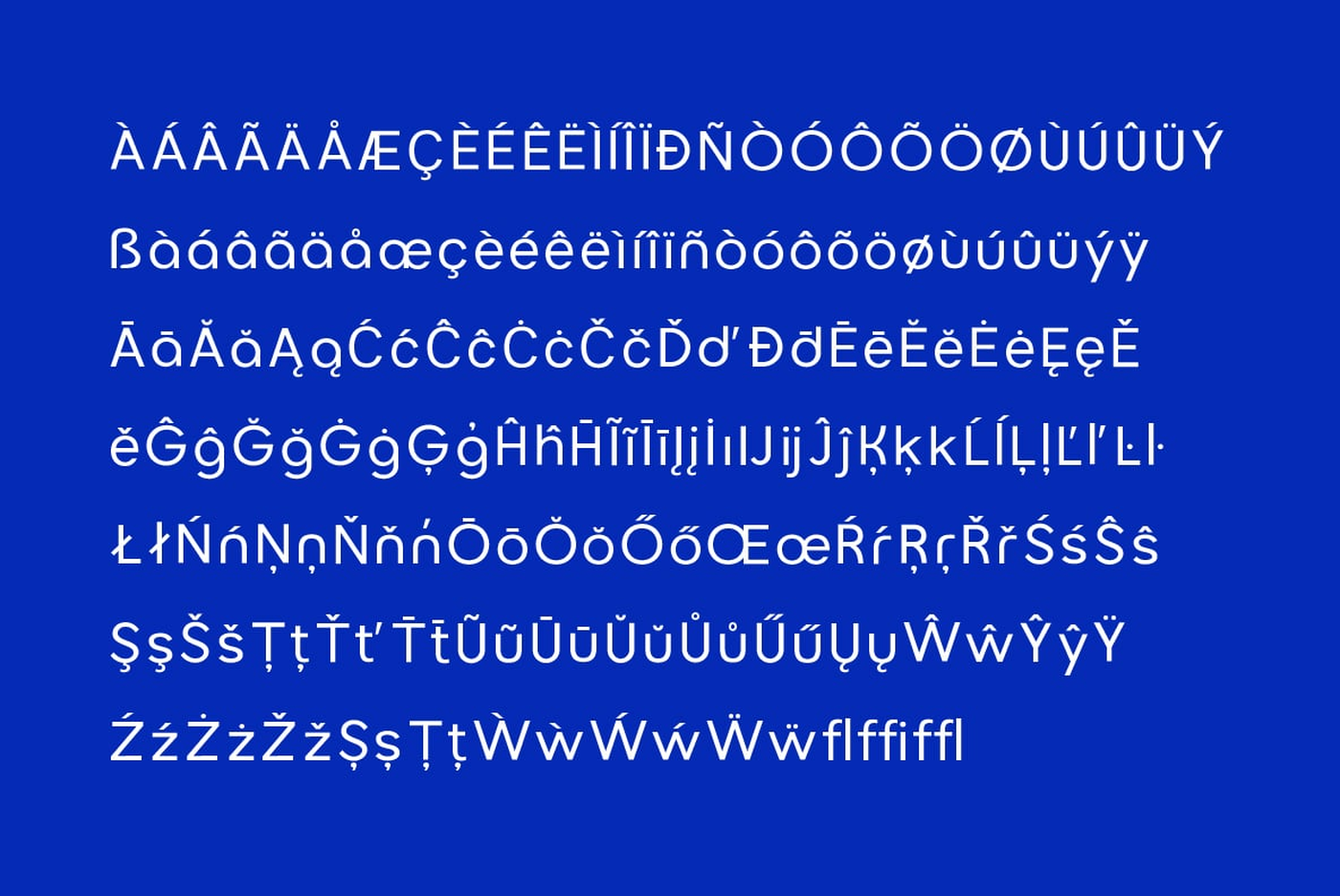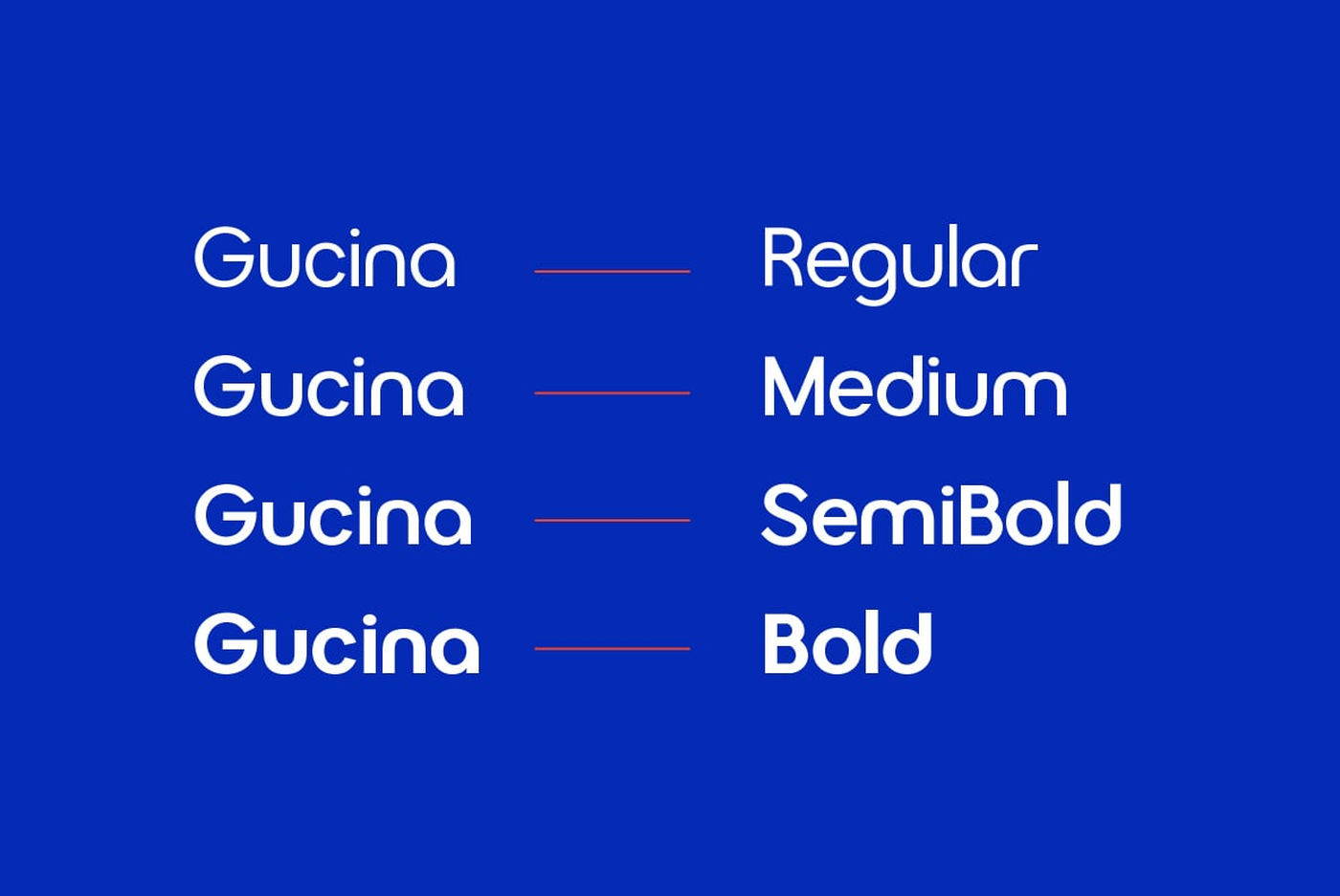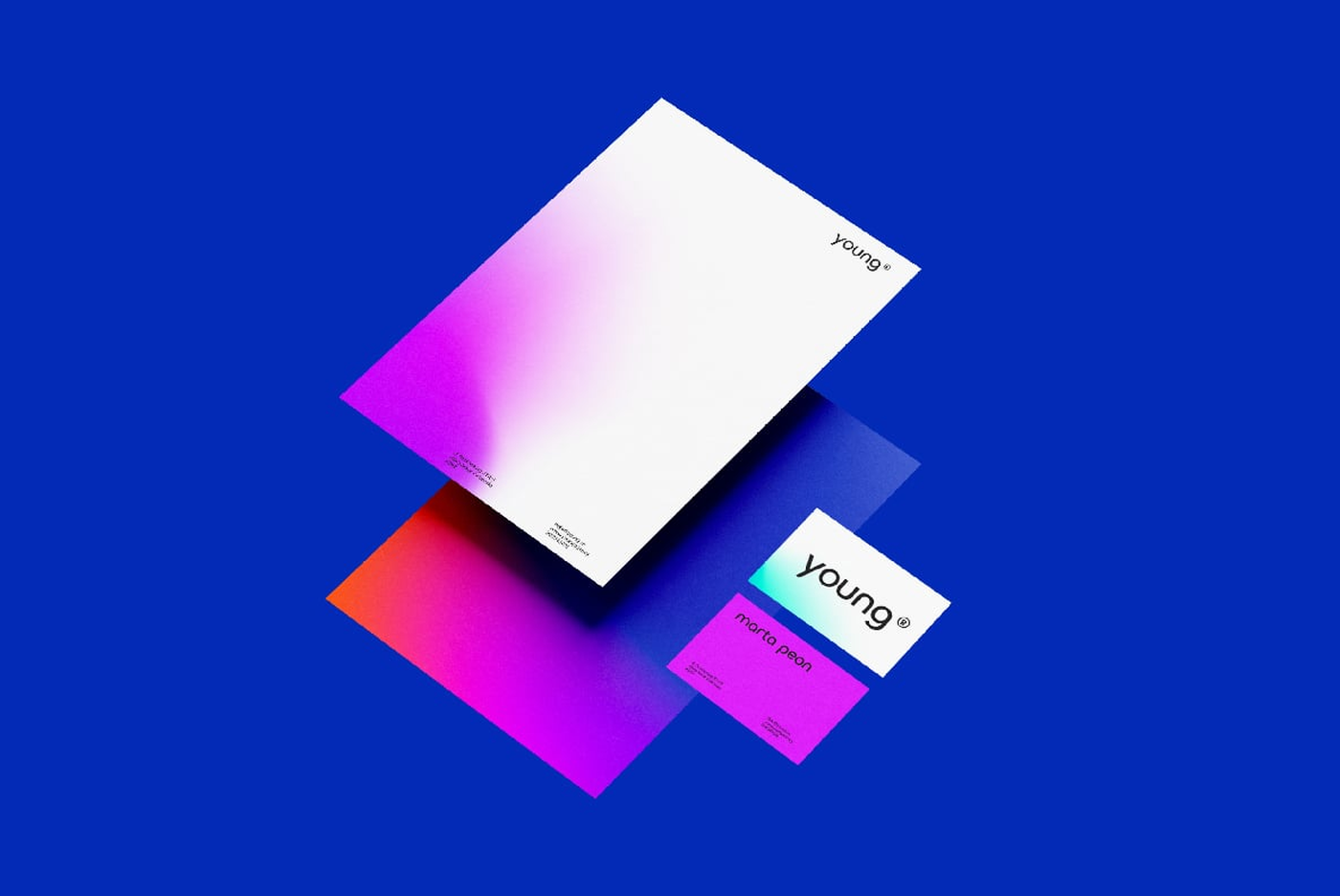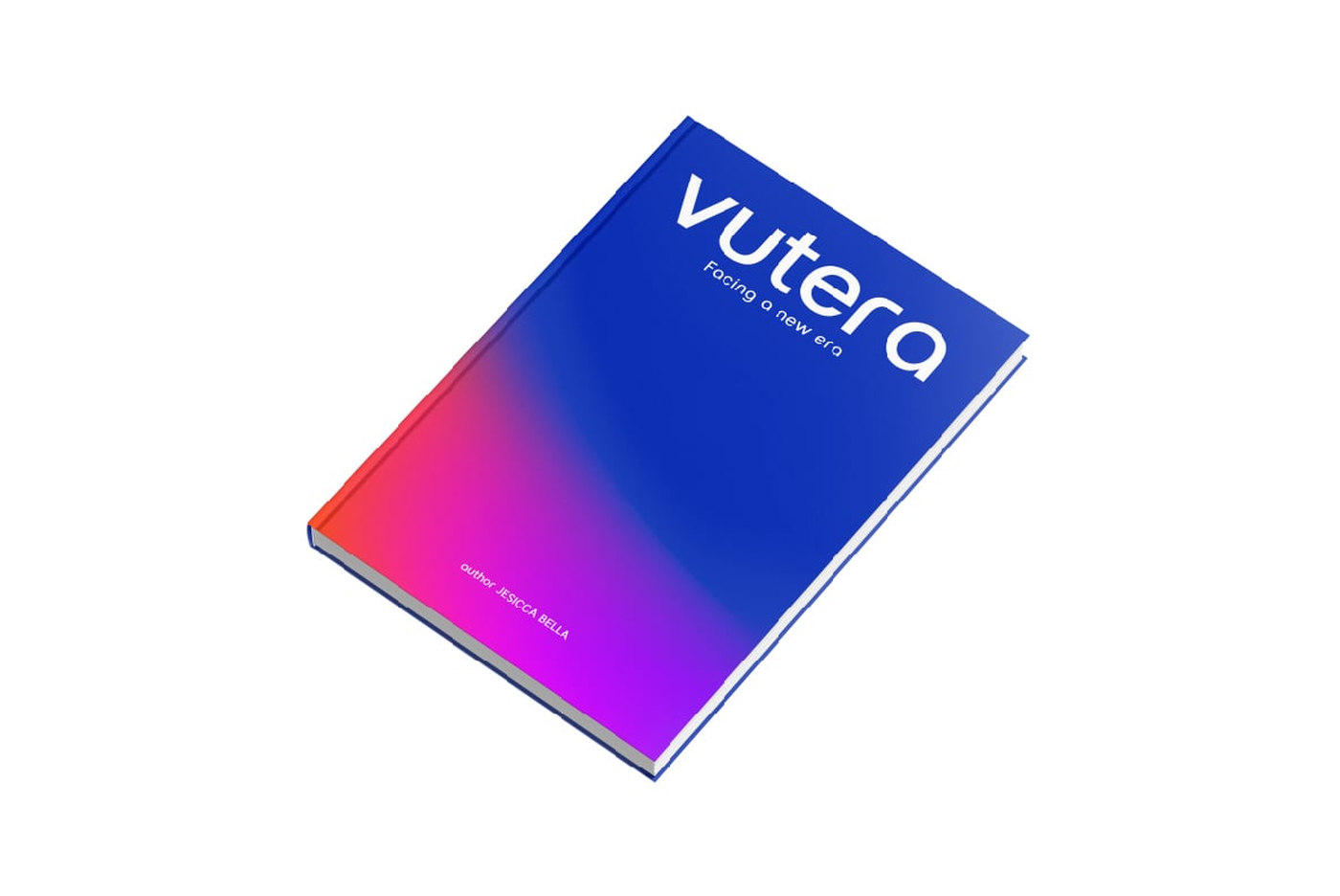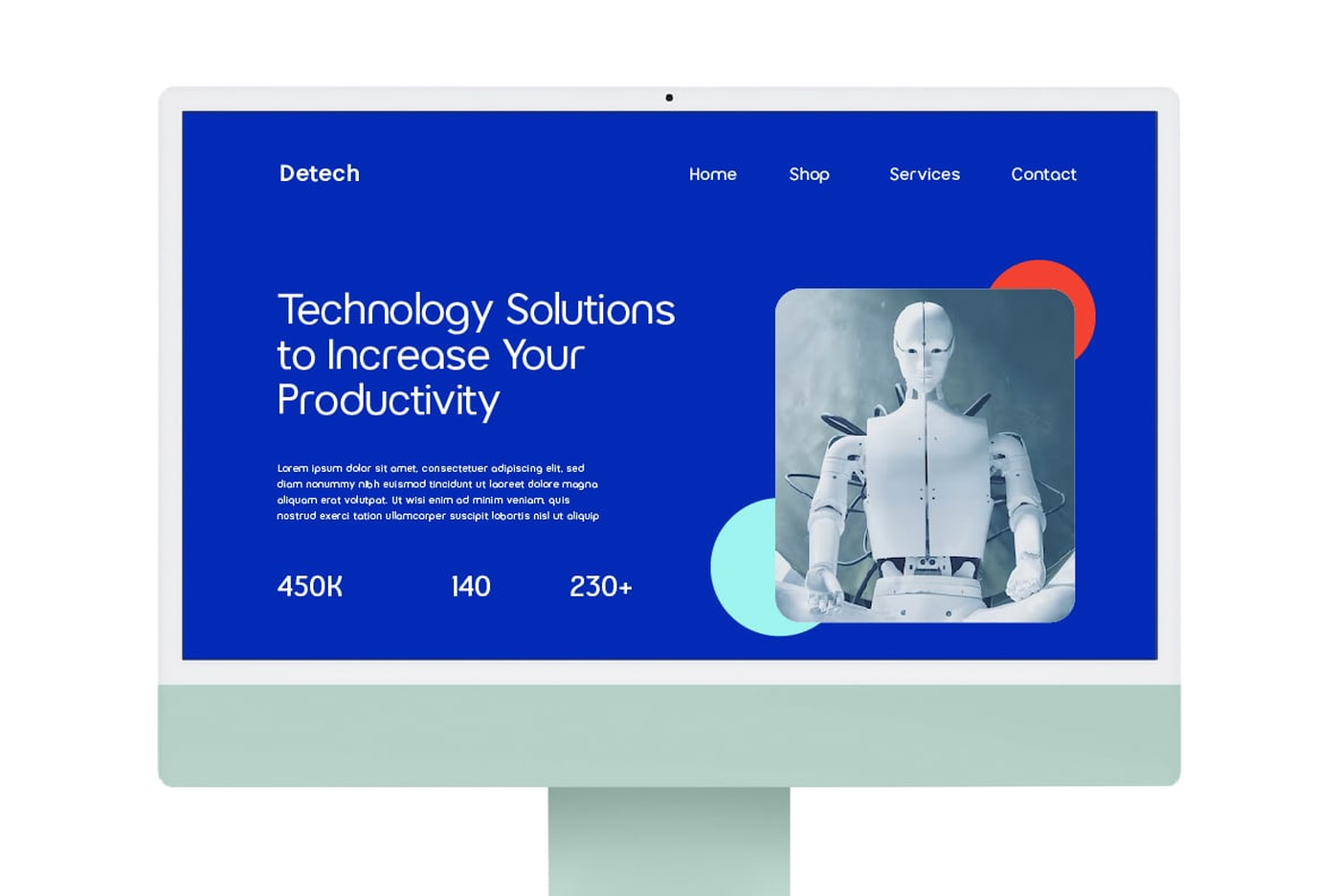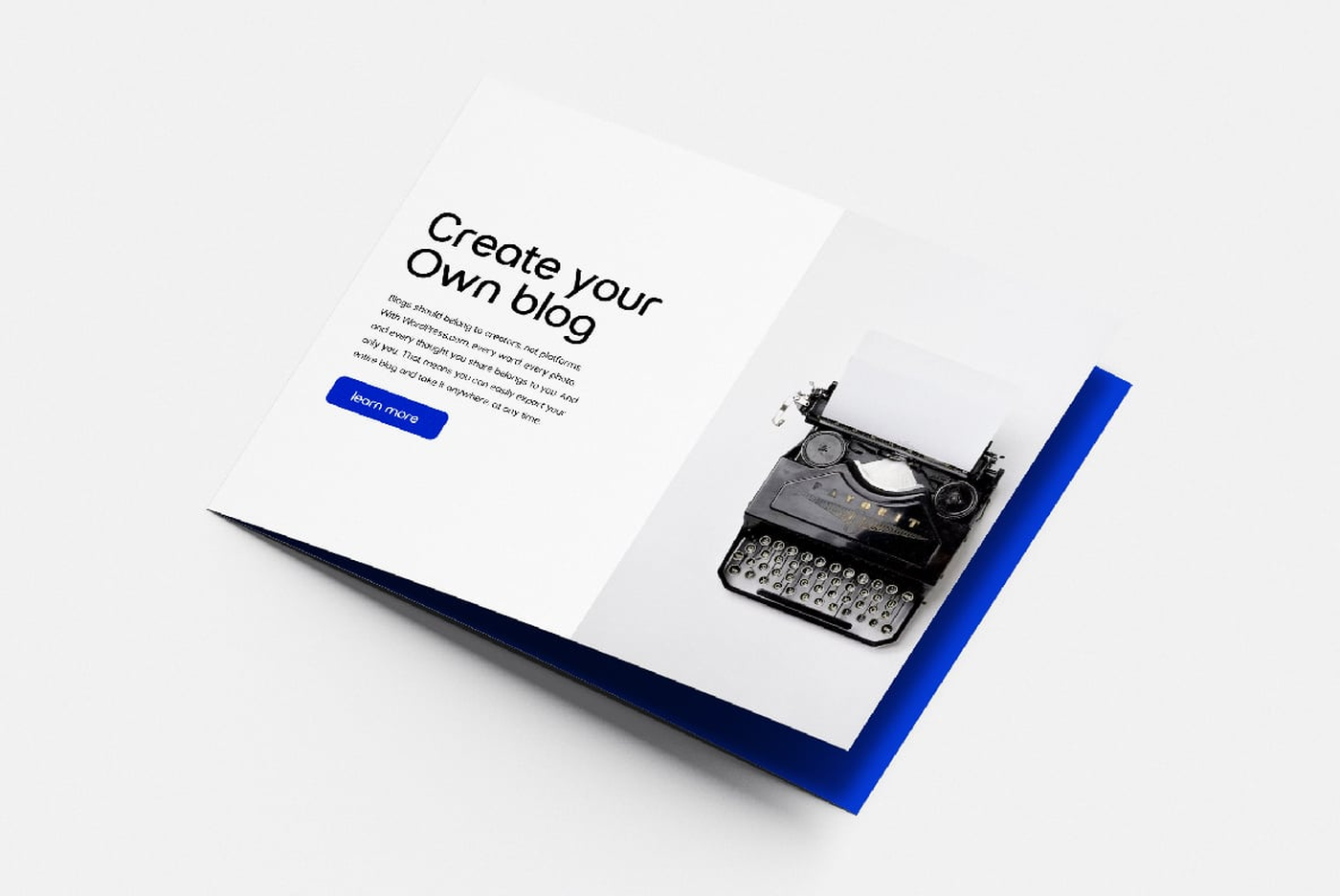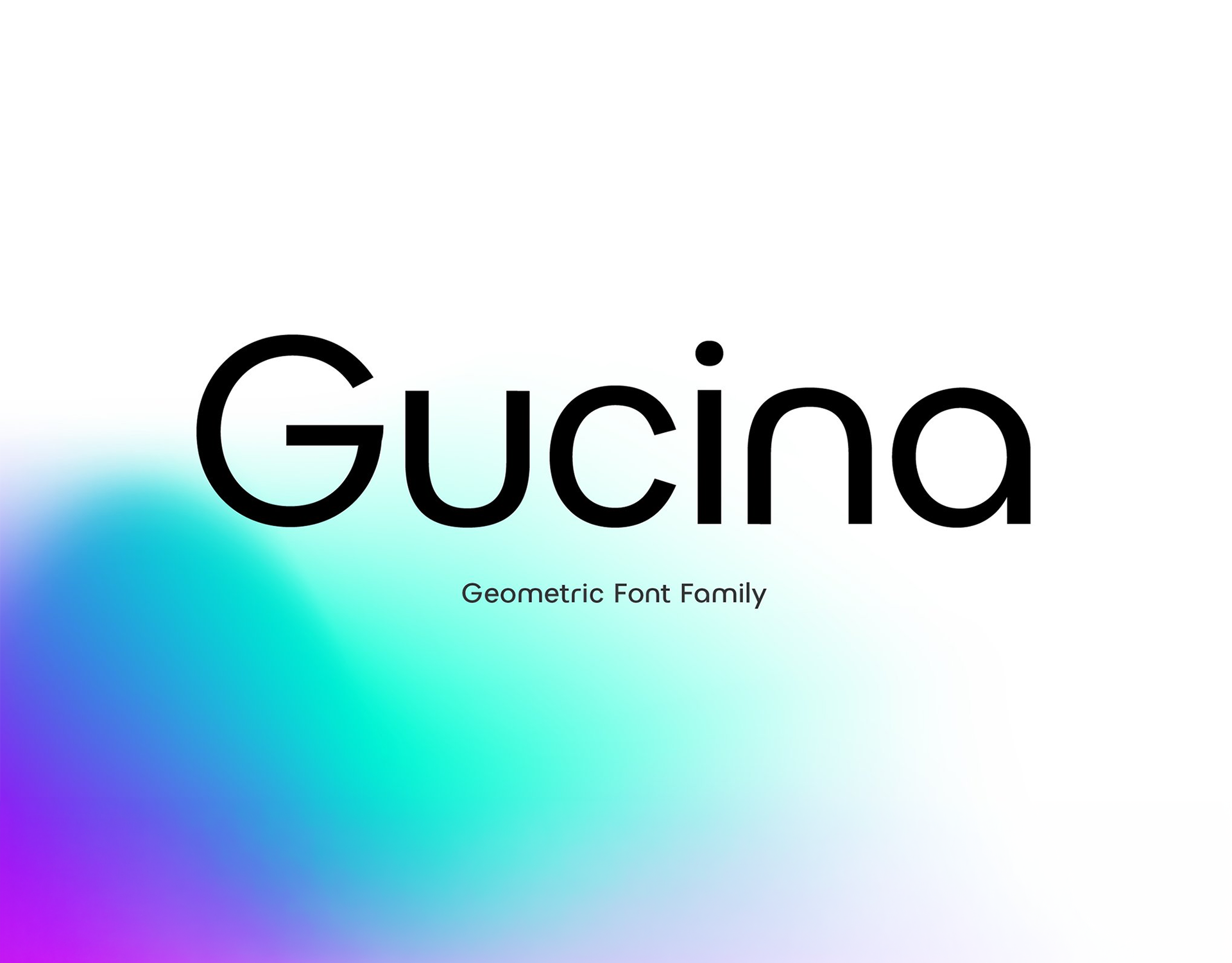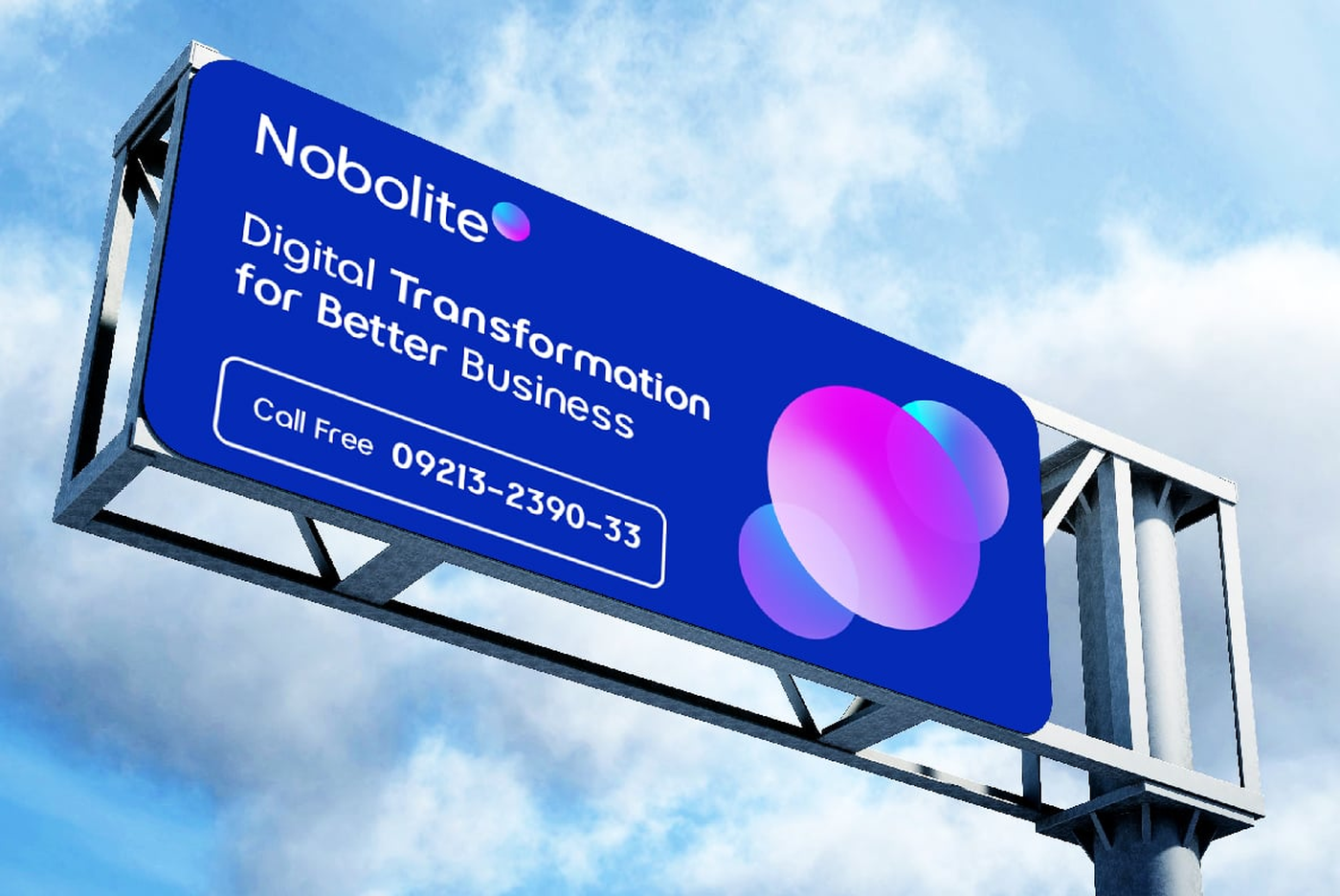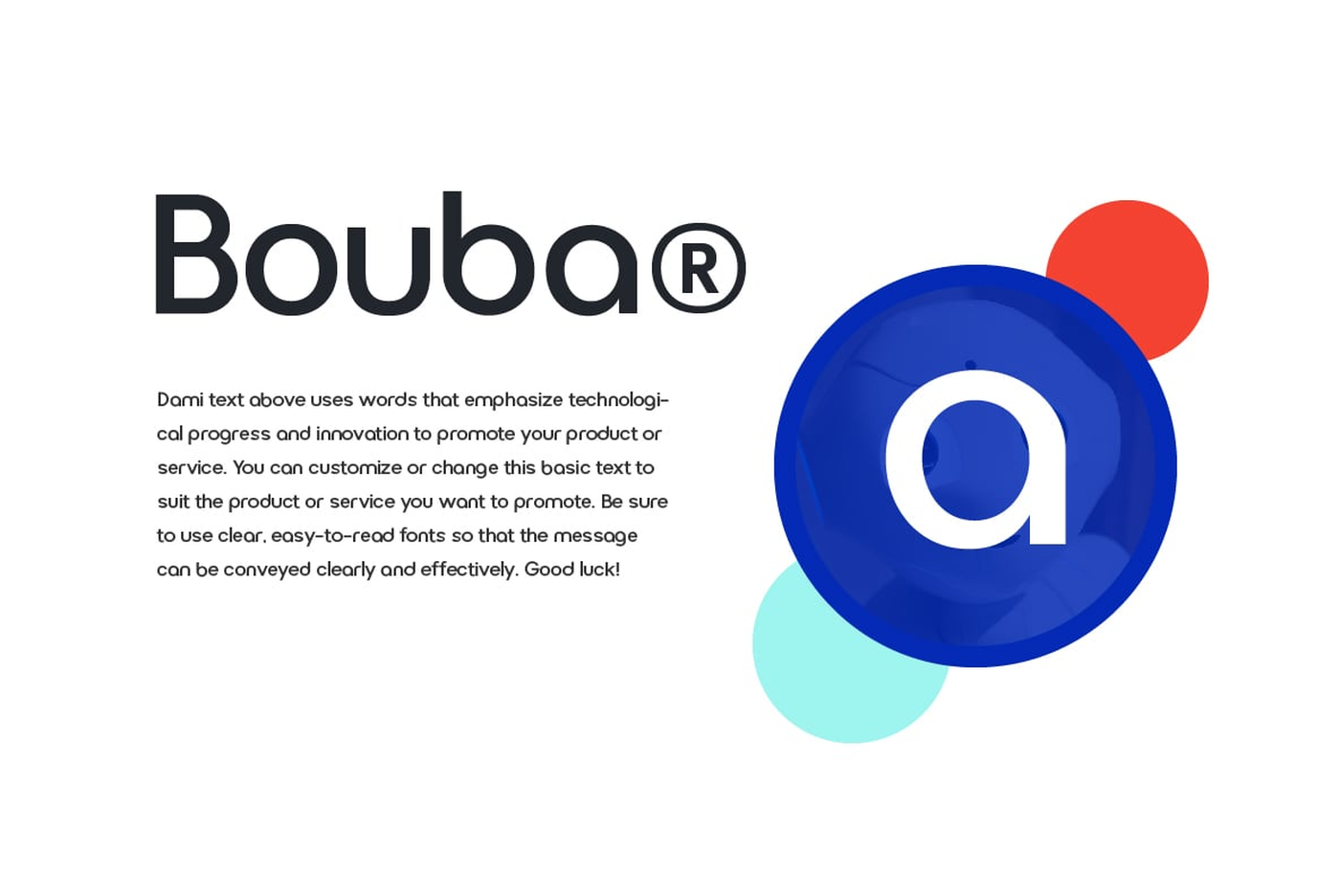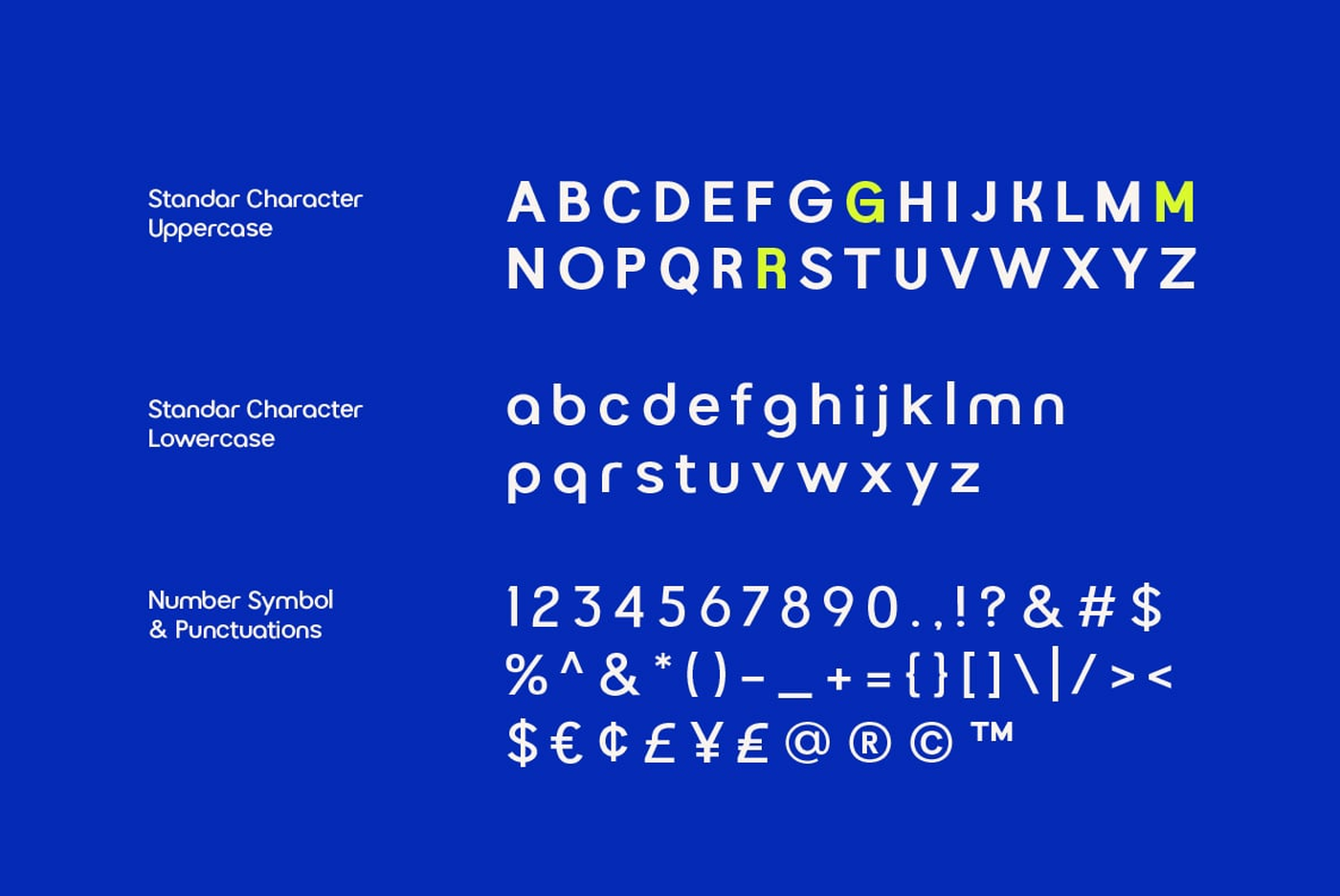
Gucina - Geometric Font Family
Gucina is a versatile typeface that will add a touch of sophistication to your designs. With its clean lines and geometric shapes, this font type is perfect for creating minimalistic logos, advertisements, web designs, and branding materials. The Gucina Geometric Font Family comes in a variety of weights, making them ideal for a variety of design projects. Whether you need a bold and impactful font for titles, or a light and airy font for body text, Gucina has you covered.
Designer: Peko Type
Font: Gucina